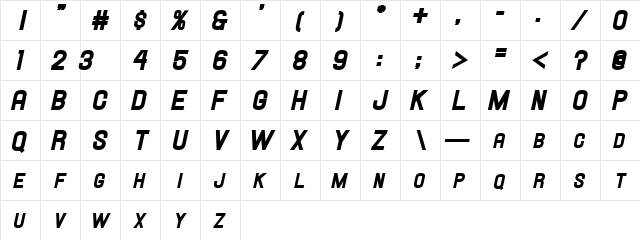
Hallandale SC Heavy It. JL Regular
Foundry: Jeff's Fonts & Dingbats
Designer: Jeffrey N. LEvine
Hallandale SC Heavy It. JL Family
Complete Hallandale SC Heavy It. JL Regular glyph index. Displaying only characters natively supported by Hallandale SC Heavy It. JL Regular font.
Design Context for Hallandale SC Heavy It. JL
Hallandale SC Heavy It. JL is a composed and adaptable typeface that performs quietly and consistently across a wide range of design contexts.